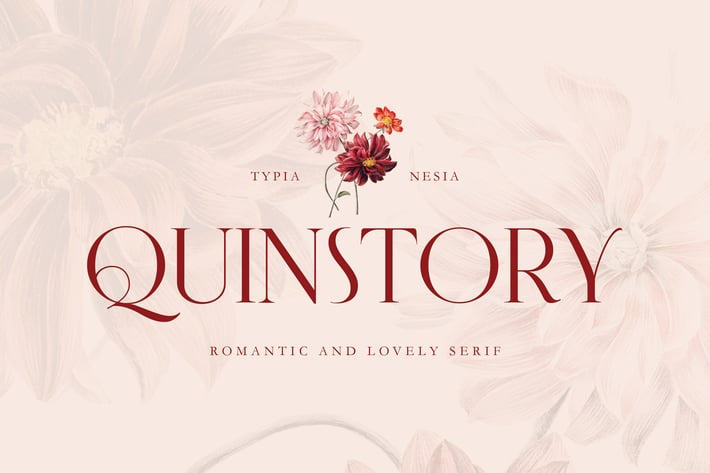
Quinstory - Romantic Beauty Lovely Serif Font
Quinstory - Modern Beauty Elegant Aesthetic Serif - Expressive Romantic Feminine Logo Branding Font
Quinstory Serif comes with some alternates and ligatures, so you can combine it to make a perfect typography design. It is perfect for your up coming projects. Such as luxury logo and branding, classy editorial design, woman magazine, cosmetic brand, fashion promotional, art gallery branding, museum, historical of architectural, boutique branding, stationery design, blog design, modern advertising design, card invitation, art quote, home decor, book/cover title, special events and any more.